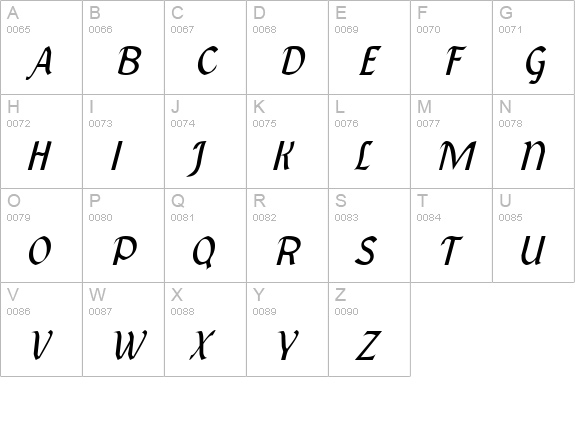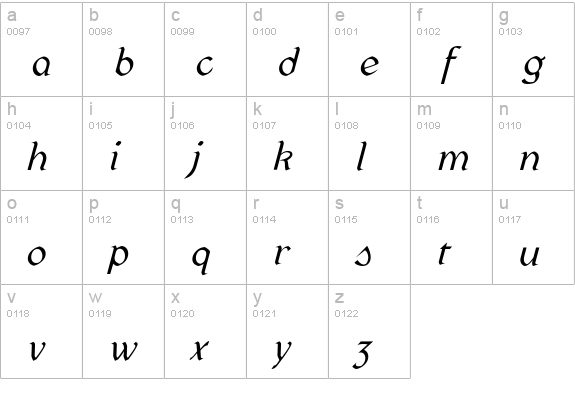
Federhozen Italic Font Details
Federhozen Italic is a distinctive, italic variant in the Federhozen typeface family \xE2\x80\x94 well suited to design and typography projects.
Federhozen Italic is a sleek and modern font that exudes sophistication and elegance. Its italicized design adds a touch of flair to any project, making it perfect for use in branding, logos, invitations, and more. The slender and flowing curves of Federhozen Italic create a sense of movement and style, making it a versatile choice for both print and digital designs. The best part? Federhozen Italic is available for free download at FontsMarket.com. This means that you can easily access this stunning font and incorporate it into your projects without any cost. Whether you're a designer looking to add a new font to your collection or a business owner seeking a fresh look for your branding, Federhozen Italic is the perfect choice. Download it today and elevate your designs with this stylish and sophisticated typeface.